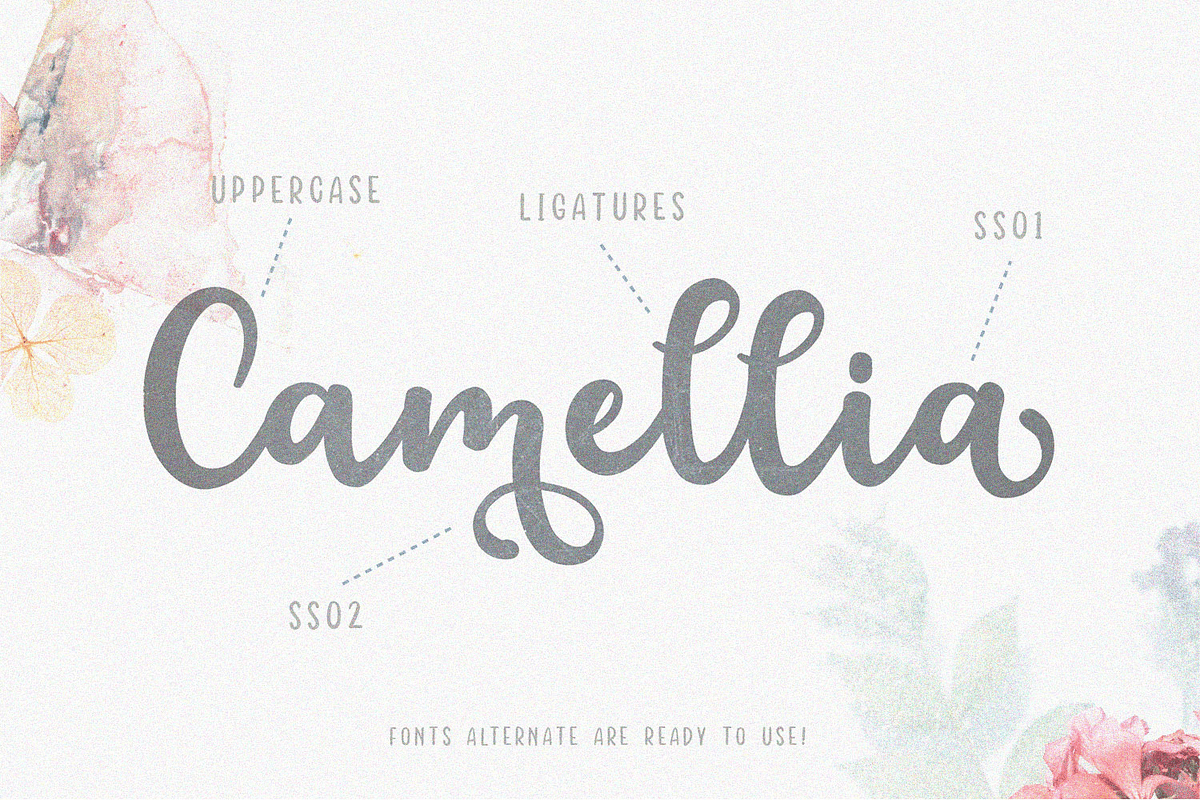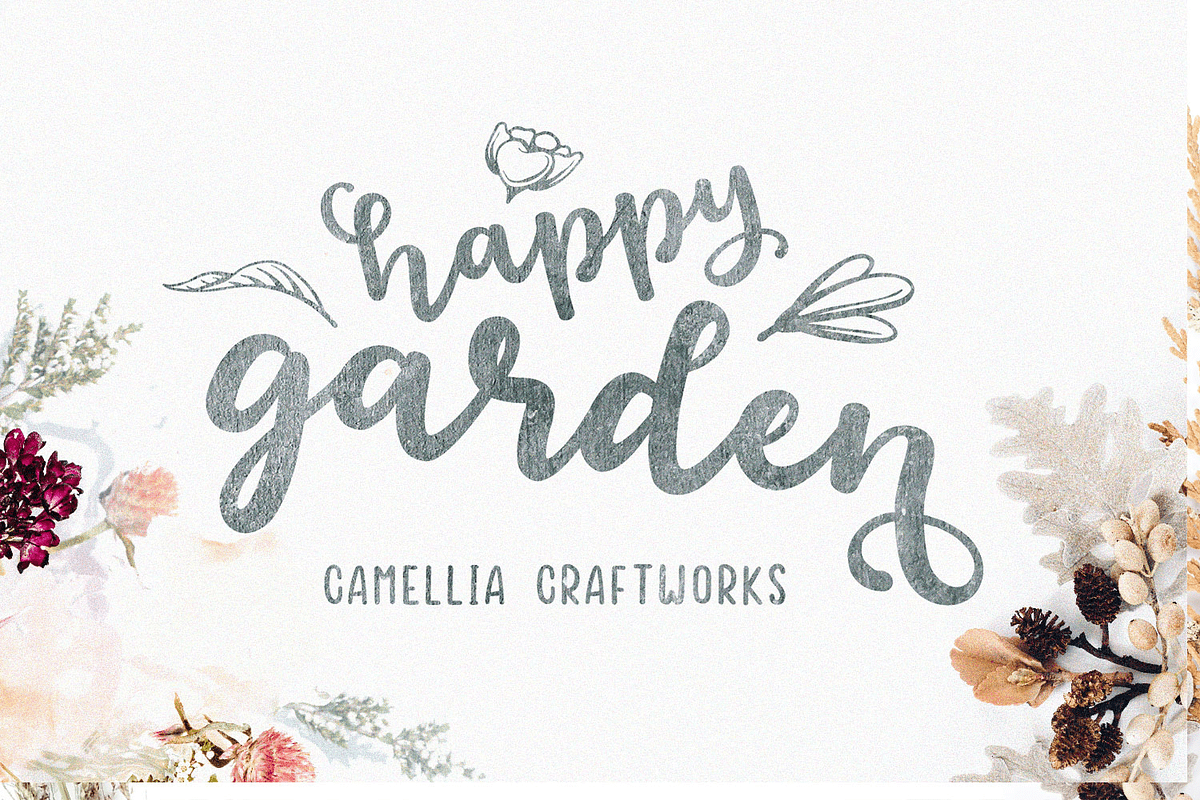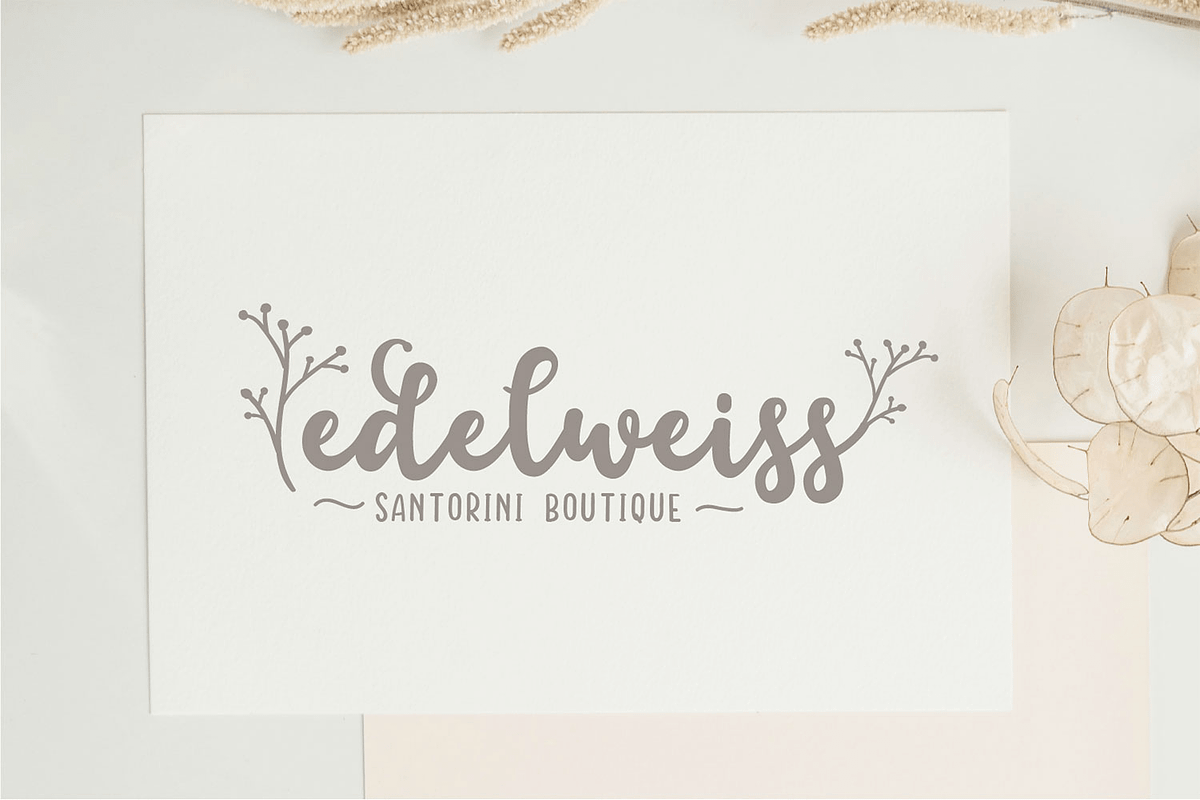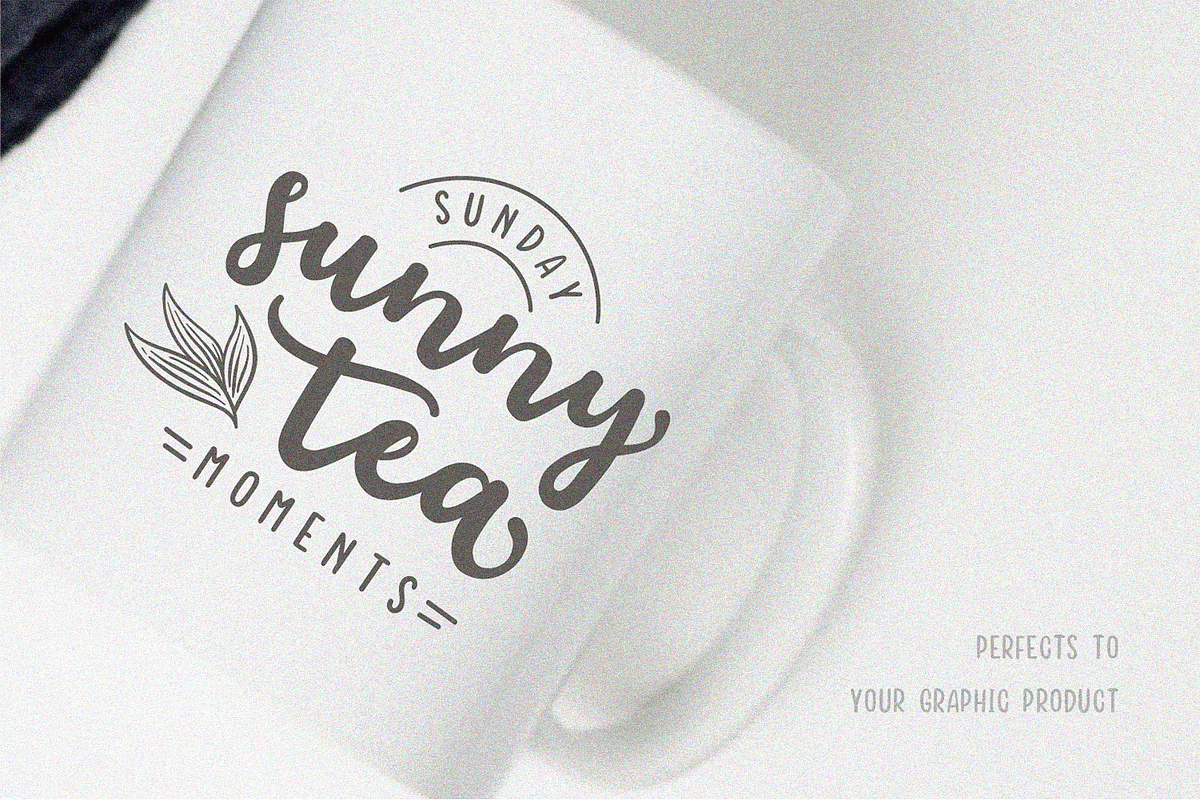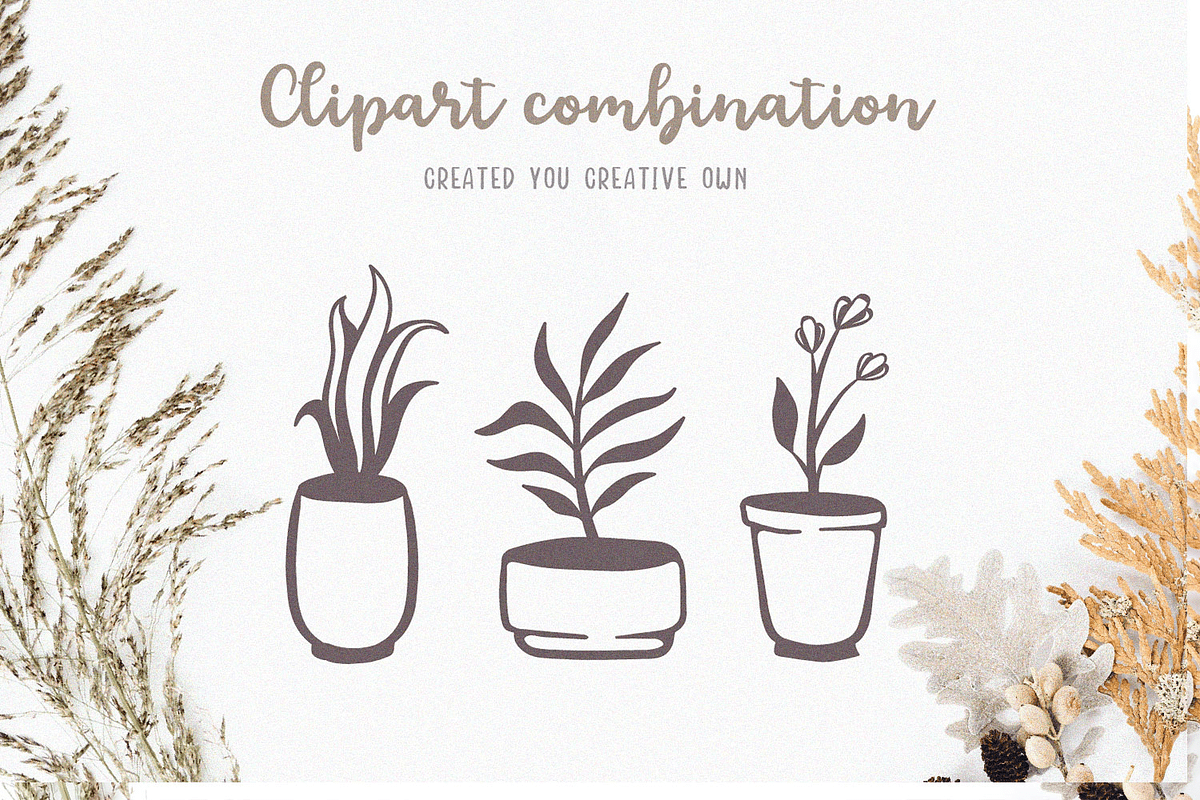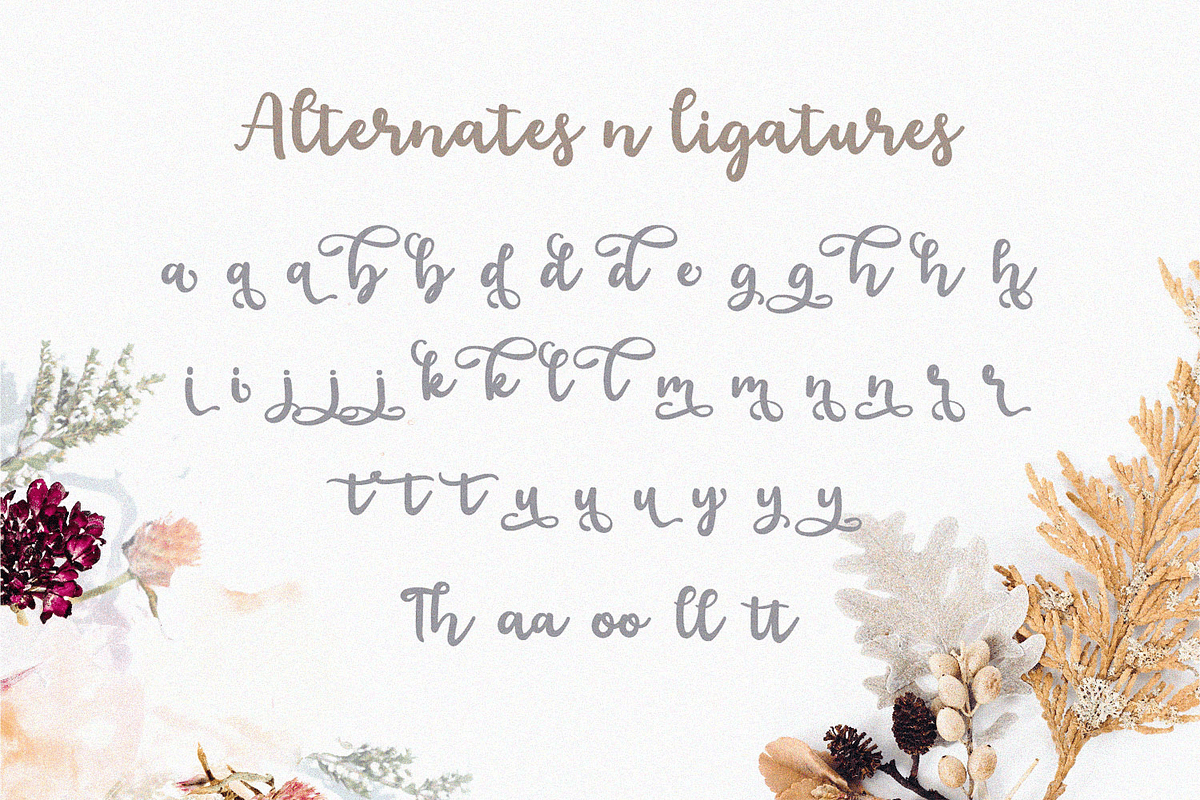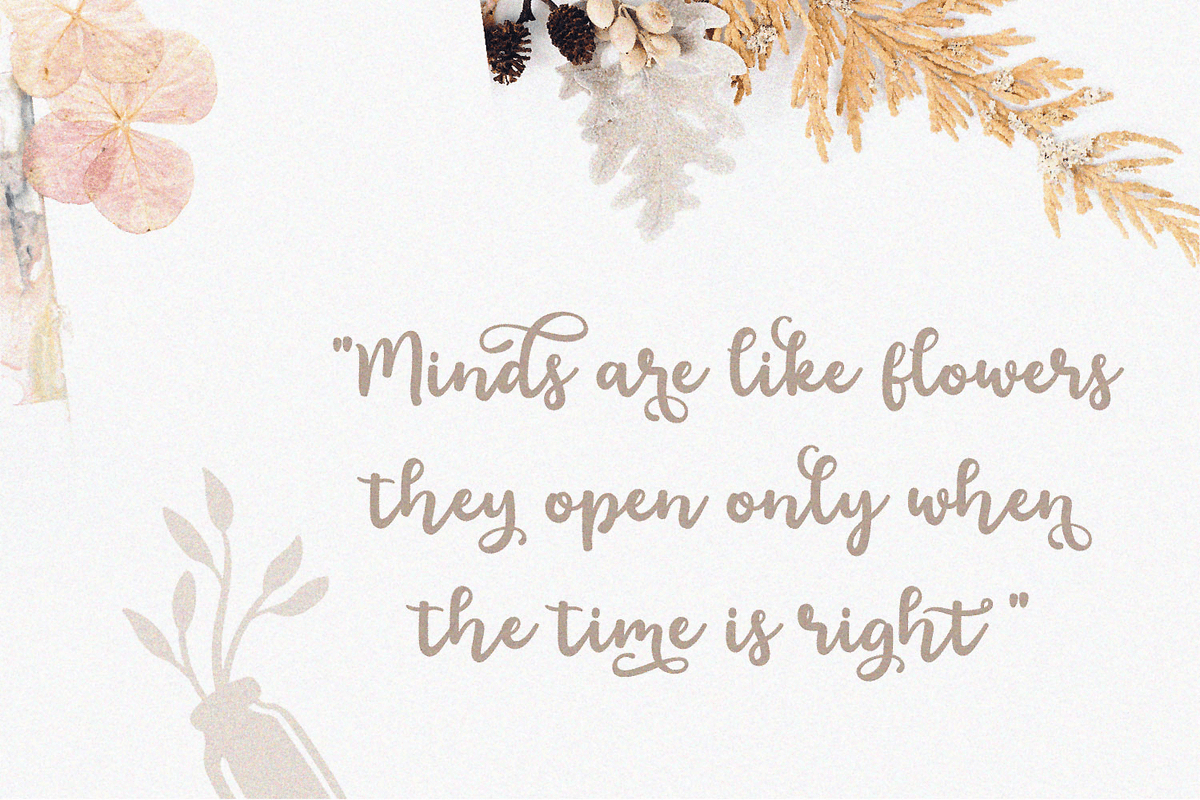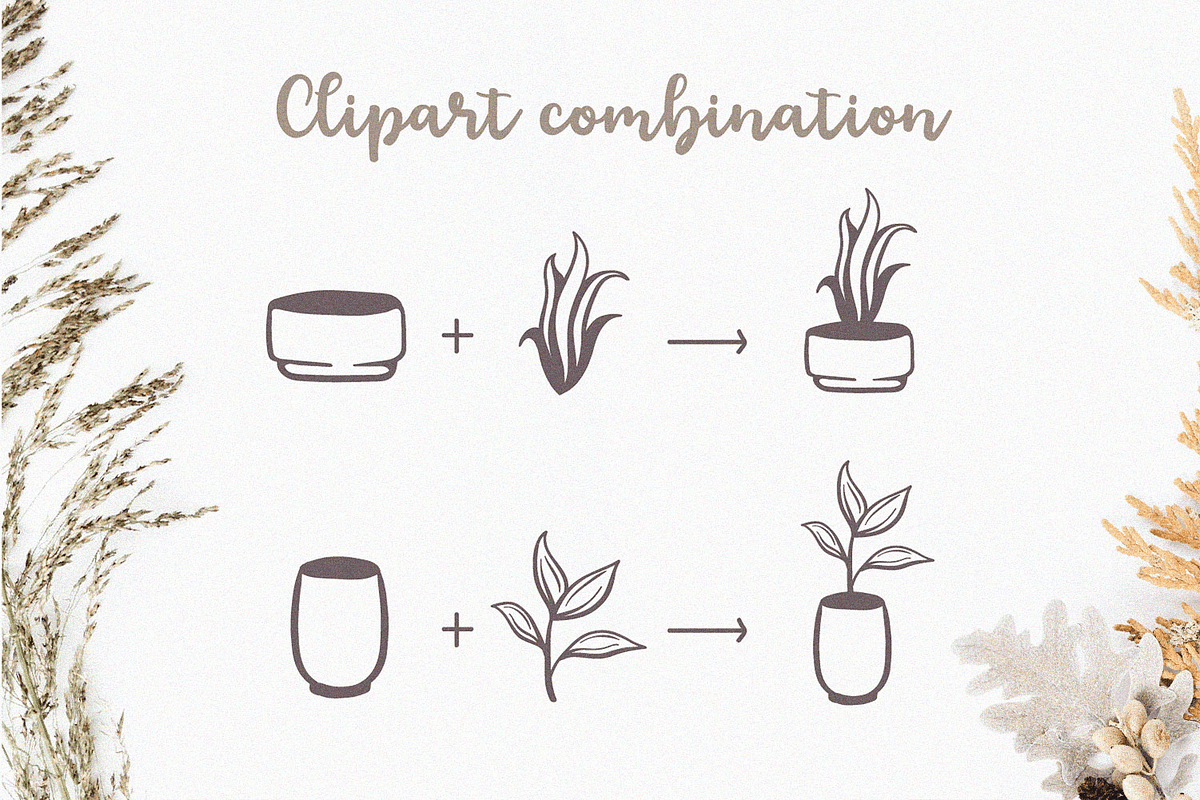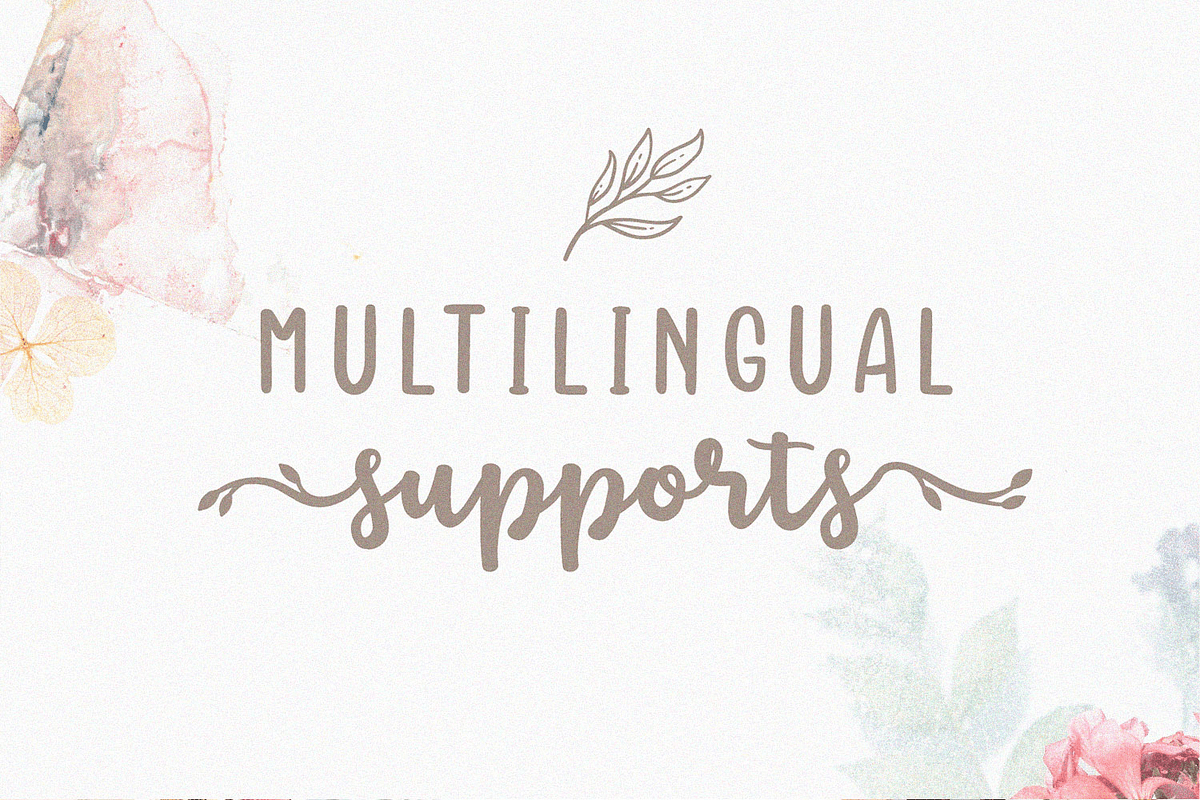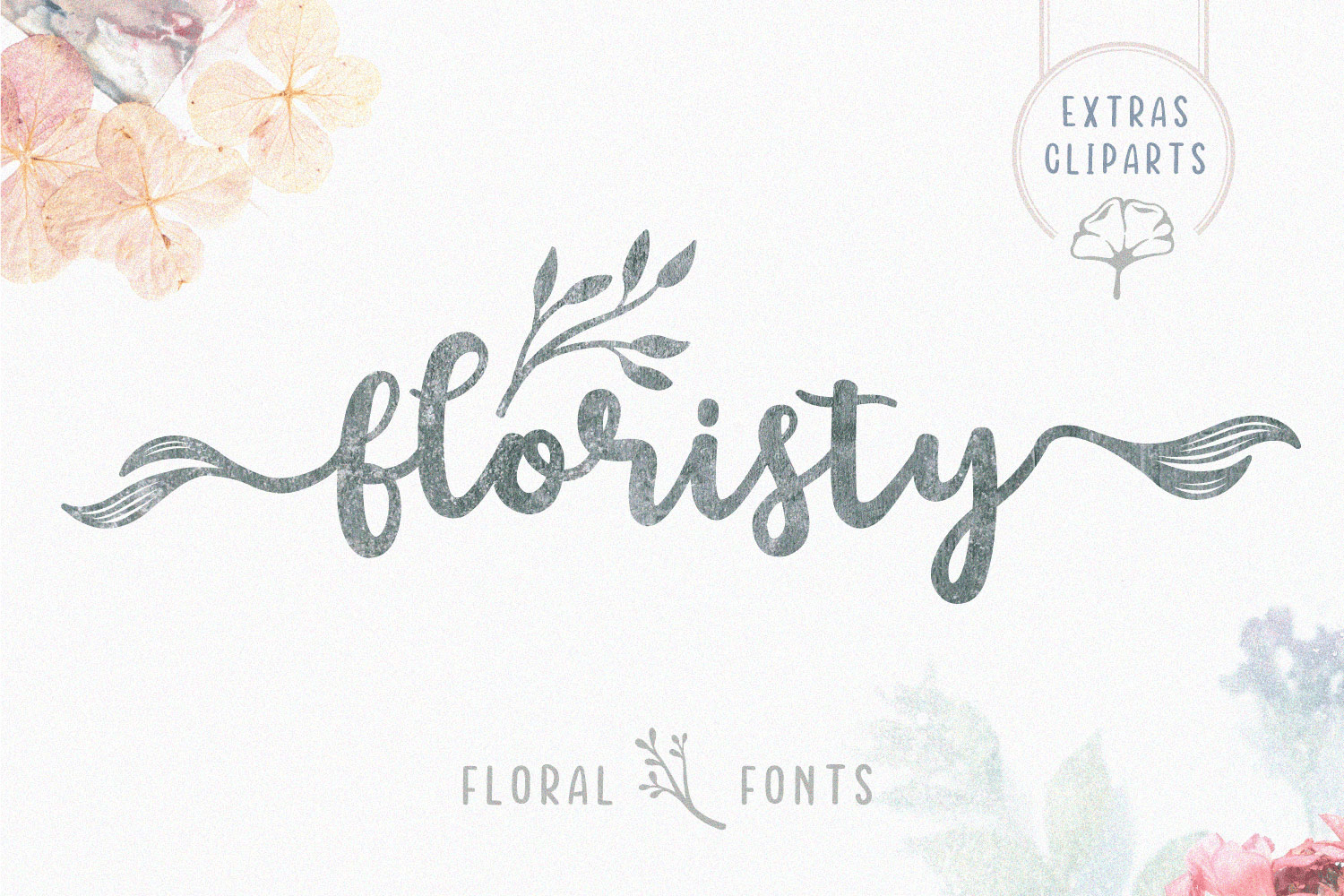
Floristy | Floral Cursive Font
Floristy is beauty floral script and curly handlettering inspired by the watercolor designs and flower in awesome garden around. Make a perfect combination ease with illustration bonused and extras swosh including on package font. This font suitable for your design project such as craft, merchandise, mug, t-shirt, cards, invitations, branding, youtube, quote etc.
- A full set of upper & lowercase characters
- Multilingual language support
- Ligature Features
- OpenType Features
- Floral Cliparts